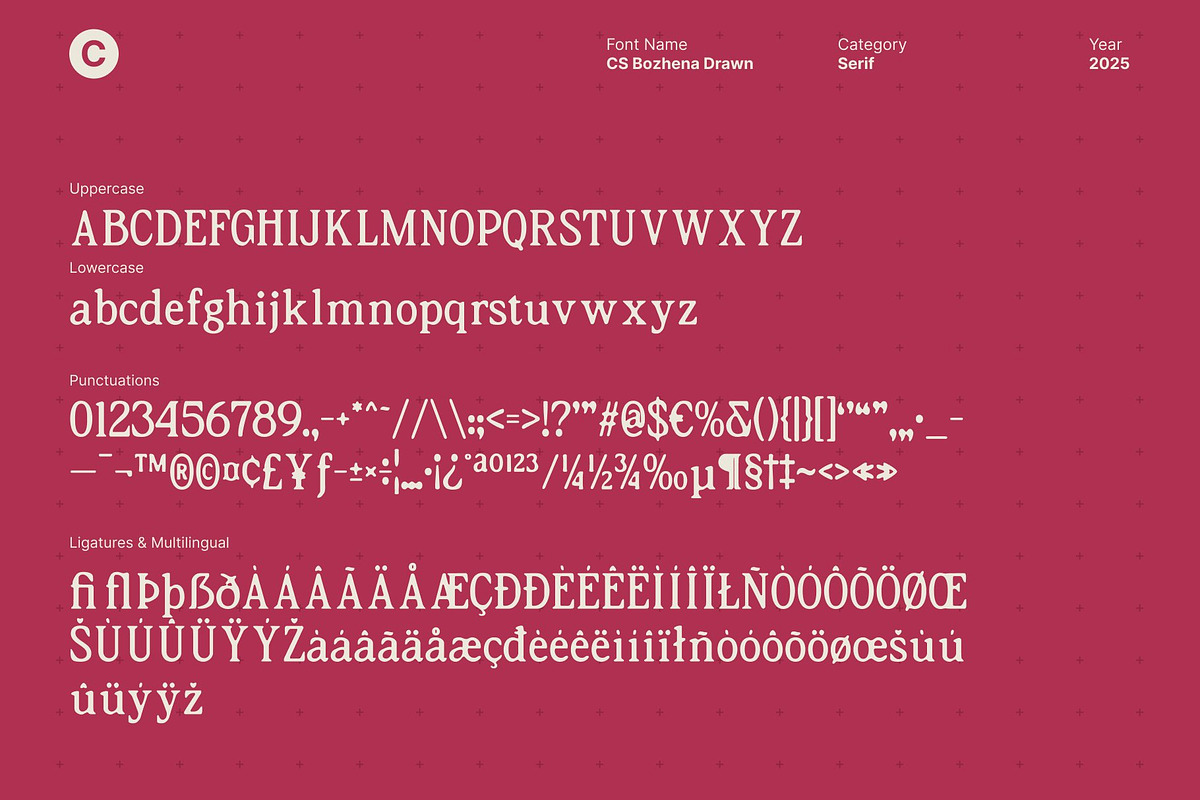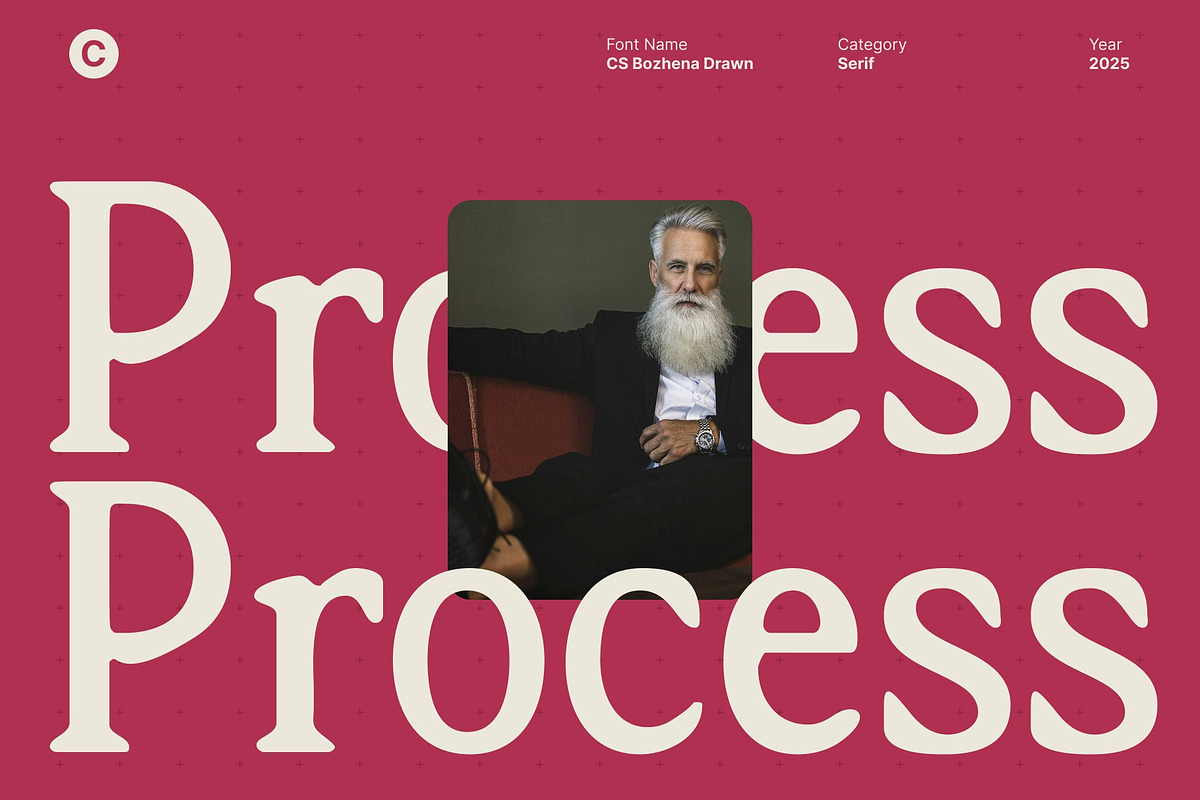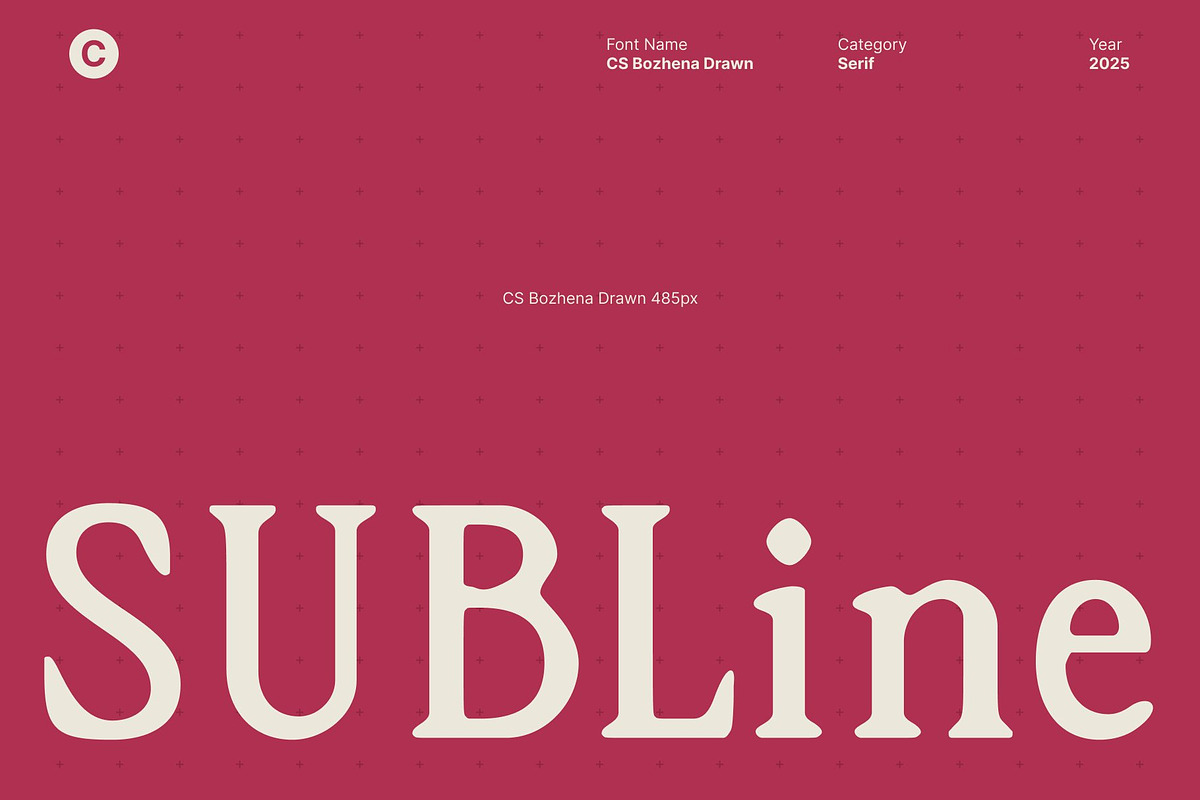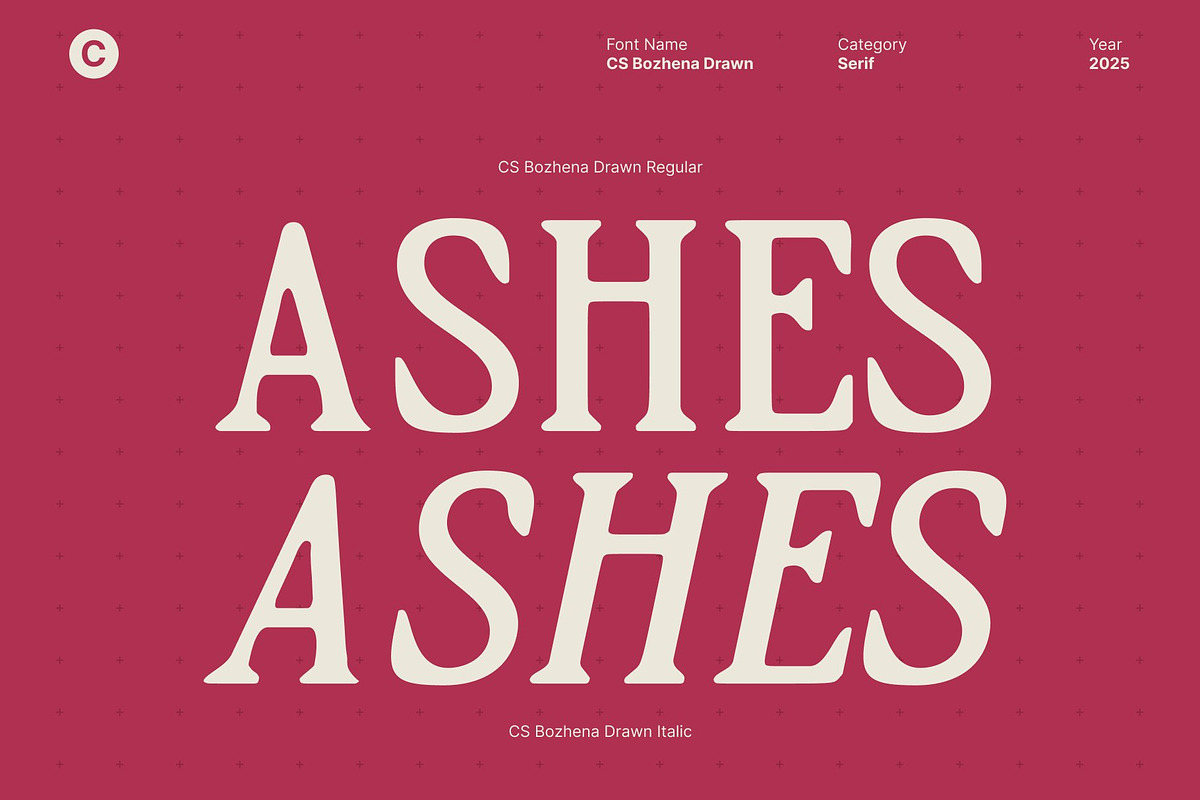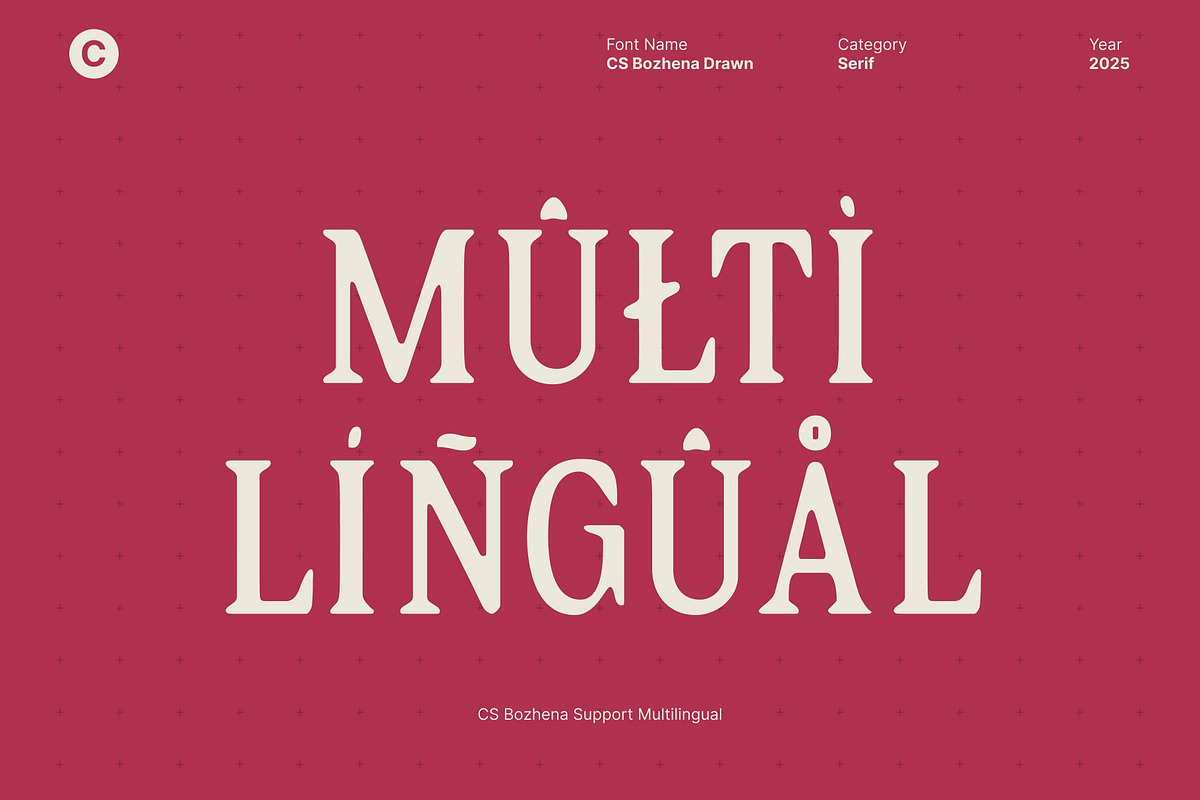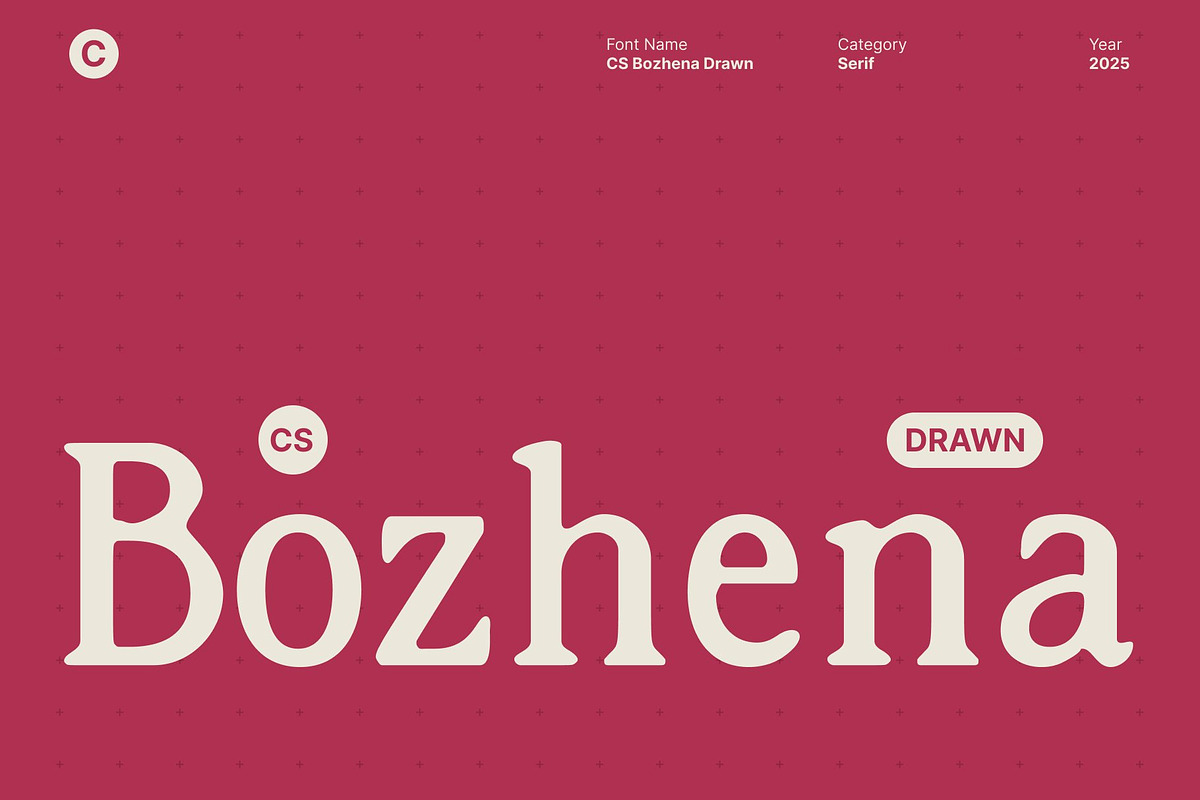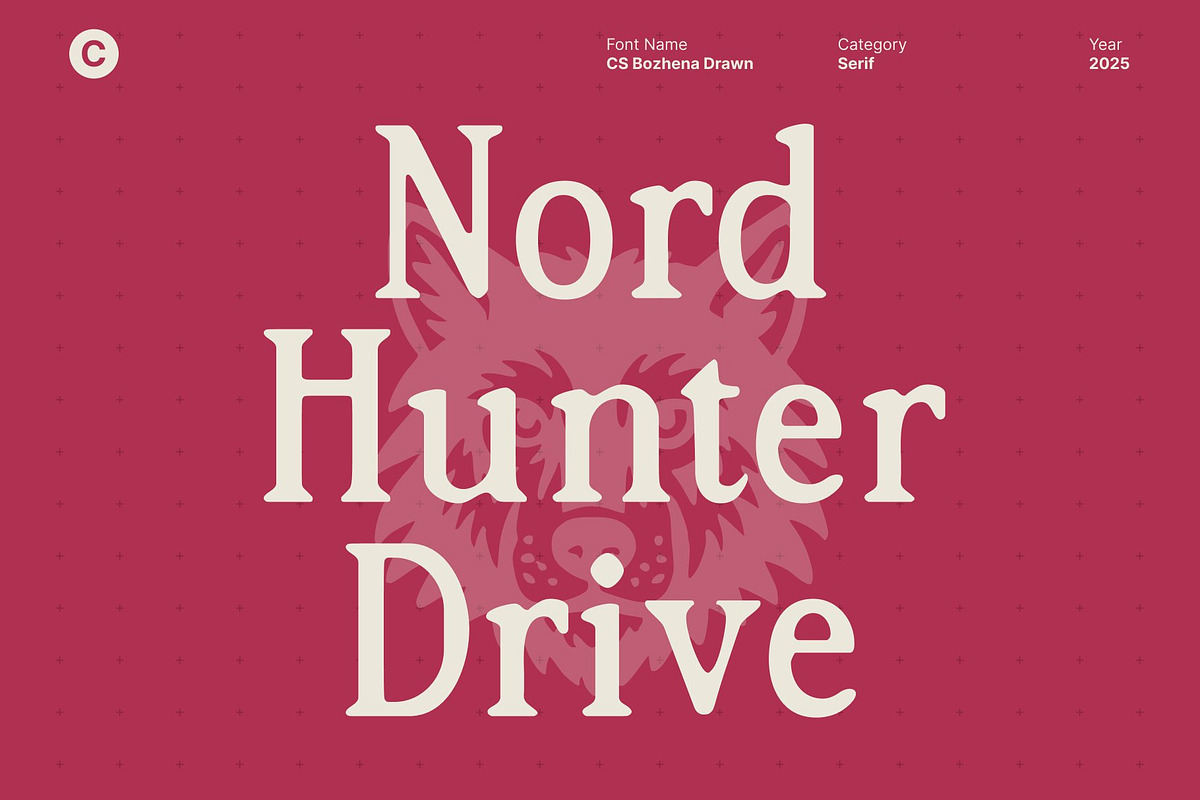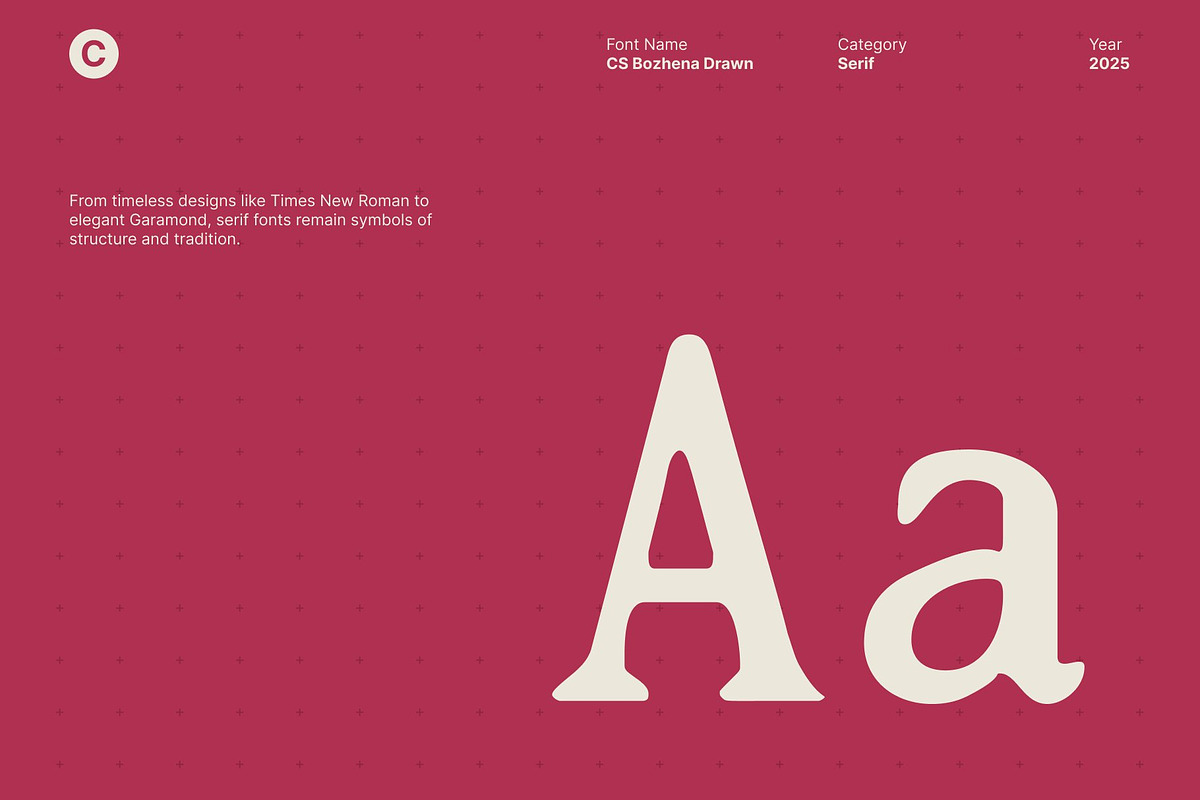
CS Bozhena Drawn
CS Bozhena Drawn – Retro Display Font with Artistic Hand-Drawn Energy
Retro Aesthetic, Nostalgic Charm This font brings timeless retro flair to modern design. Its classic proportions, serif style and retro inspired curves capture the spirit of past design eras with warmth and character. The font instantly evokes nostalgia, making it ideal for projects that aim to revive the charm of old school typography while staying visually fresh.
Hand-Drawn Texture for Artistic Personality What sets this font apart is its expressive, handcrafted texture. The drawn detailing adds a natural, artistic touch that enhances its retro appeal. Each letter feels alive with personality, giving your work a distinctive handmade look that stands out in both digital and print environments. This texture makes the font feel authentic, creative, and richly expressive.
Perfect for Retro Inspired Campaigns Whether you’re designing posters, flyers, or promotional materials, this font delivers the perfect balance of nostalgia and energy. Its bold shapes command attention, while its retro vibe creates instant emotional connection.
Ideal for Branding and Visual Identities This font shines in branding applications where uniqueness is essential. From logos to packaging, it brings playful retro confidence to any identity system. The artistic texture and lively shapes make your brand feel memorable, expressive, and full of creative character perfect for lifestyle products, creative agencies, cafés, apparel, and more.
- CS Bozhena Drawn Regular
- CS Bozhena Drawn Italic